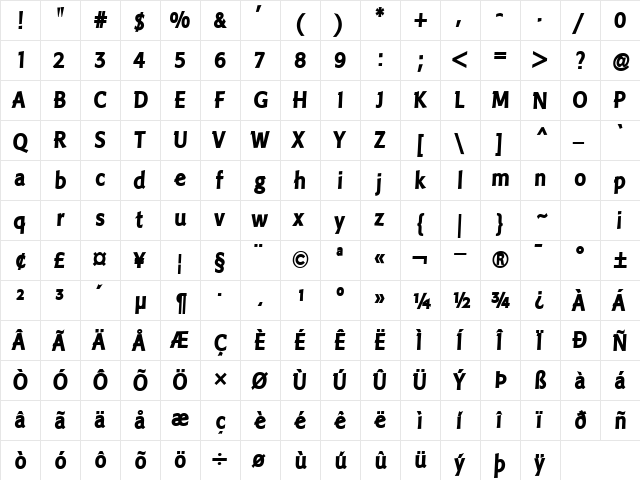
LTPisa Headline Regular
Design Context for LTPisa Headline Typeface
LTPisa Headline takes a measured approach to typography — its balanced proportions and neutral character make it a reliable workhorse for both digital and print work.